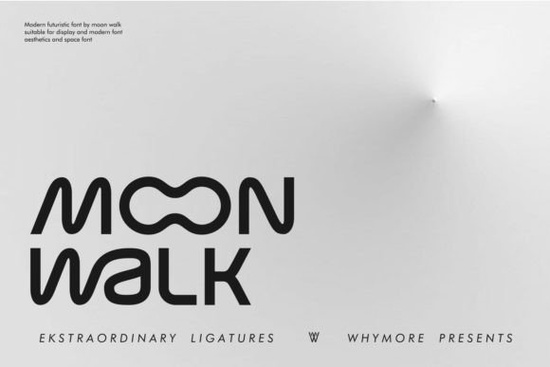
When it comes to choosing the right font for your design projects, Moon Walk Font stands out as a versatile and elegant option. This typeface offers a minimalist yet sophisticated look, making it perfect for a wide range of creative applications. Whether you're working on branding, design templates, or even editorial designs, Moon Walk can add a touch of modern elegance to your work.
What Makes Moon Walk Font Unique?
Moon Walk is designed with a unique blend of simplicity and style. The curves at each end of the letters give it a distinctive, almost futuristic feel, while still maintaining a clean and minimalistic appearance. This balance makes it an excellent choice for both contemporary and forward-thinking designs. It's not just about looking good; it's about creating a lasting impression that resonates with your audience.
Where Can You Use Moon Walk Font?
The versatility of Moon Walk Font means it can be used in a variety of contexts. Here are some specific use cases:
- Branding: Create a memorable and professional brand identity with Moon Walk. Its clean lines and subtle curves make it ideal for logos, business cards, and other branding materials.
- Design Templates: Enhance your design templates with this elegant font. Whether you're working on social media graphics, website mockups, or print layouts, Moon Walk can add a touch of sophistication.
- Invitations and Cards: For special occasions, Moon Walk can bring a touch of class to your invitations and greeting cards. Its minimalist form works well for both formal and casual events.
- Editorial Designs: Use Moon Walk in magazines, newsletters, and other editorial content to create a visually appealing and readable layout. Its readability and style make it a great choice for headlines and body text.
How Does Moon Walk Compare to Other Sans Serif Fonts?
Moon Walk Font is part of the broader category of sans serif fonts, which are known for their clean and modern appearance. Here’s how it compares to some other popular options:
- Bouldy Font: While Bouldy has a more robust and bold character, Moon Walk offers a lighter, more refined touch. Both are great for different design needs, but Moon Walk is more suited for elegant and minimalist designs.
- Godplan Font: Godplan has a more geometric and structured look, whereas Moon Walk has a more organic and flowing feel. If you prefer a font with a bit more personality, Moon Walk might be the better choice.
- Notebook Font: Notebook is a more casual and handwritten-style font, making it suitable for informal and creative projects. Moon Walk, on the other hand, is more polished and professional, ideal for a wider range of formal and semi-formal designs.
- Nunito Sans Font: Nunito Sans is a highly legible and versatile font, but it has a more standard and less unique appearance compared to Moon Walk. Moon Walk’s distinctive curves and minimalist form set it apart and make it a standout choice for those looking for something a bit different.
Tips for Using Moon Walk Font Effectively
To get the most out of Moon Walk Font, consider these tips:
- Pair with Complementary Fonts: Combine Moon Walk with other fonts that complement its style. For example, a serif or script font can add a nice contrast and enhance the overall design.
- Use Adequate Spacing: Ensure there is enough space between letters and lines to maintain readability. This is especially important for longer texts like body copy.
- Test on Different Backgrounds: Experiment with different background colors and textures to see how Moon Walk looks. This will help you choose the best combination for your project.
- Consider the Context: Think about the tone and message of your design. Moon Walk is versatile, but it works best in contexts where a modern, elegant, and minimalist look is desired.
Final Thoughts
Moon Walk Font is a fantastic choice for designers, crafters, and small businesses looking to add a touch of elegance and modernity to their projects. Its minimalist form and distinctive curves make it a standout option in the world of sans serif fonts. Whether you're working on branding, design templates, or editorial content, Moon Walk can help you create designs that are both visually appealing and professional.